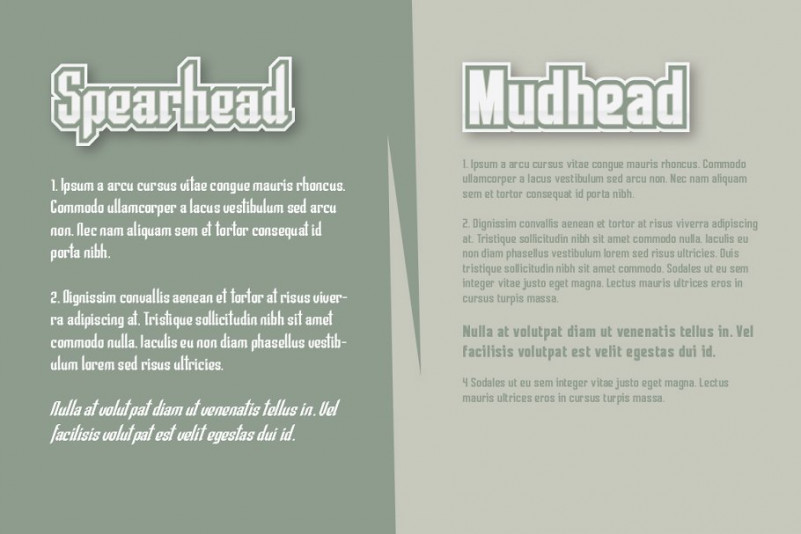
eSports Font
A very successful pairing of two fonts for your sports logo. If you want your logo to stand out with the help of fonts, not just with mascots, you came to that place.